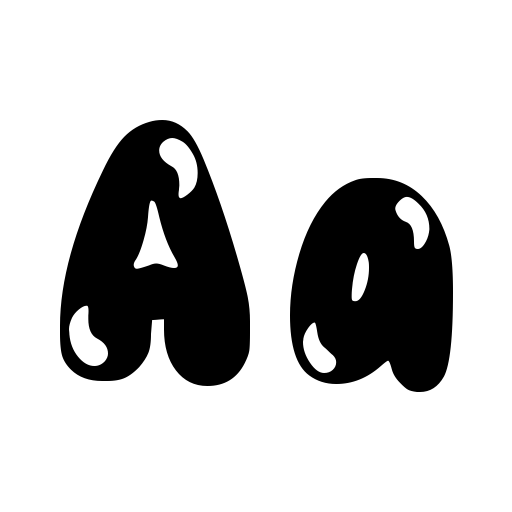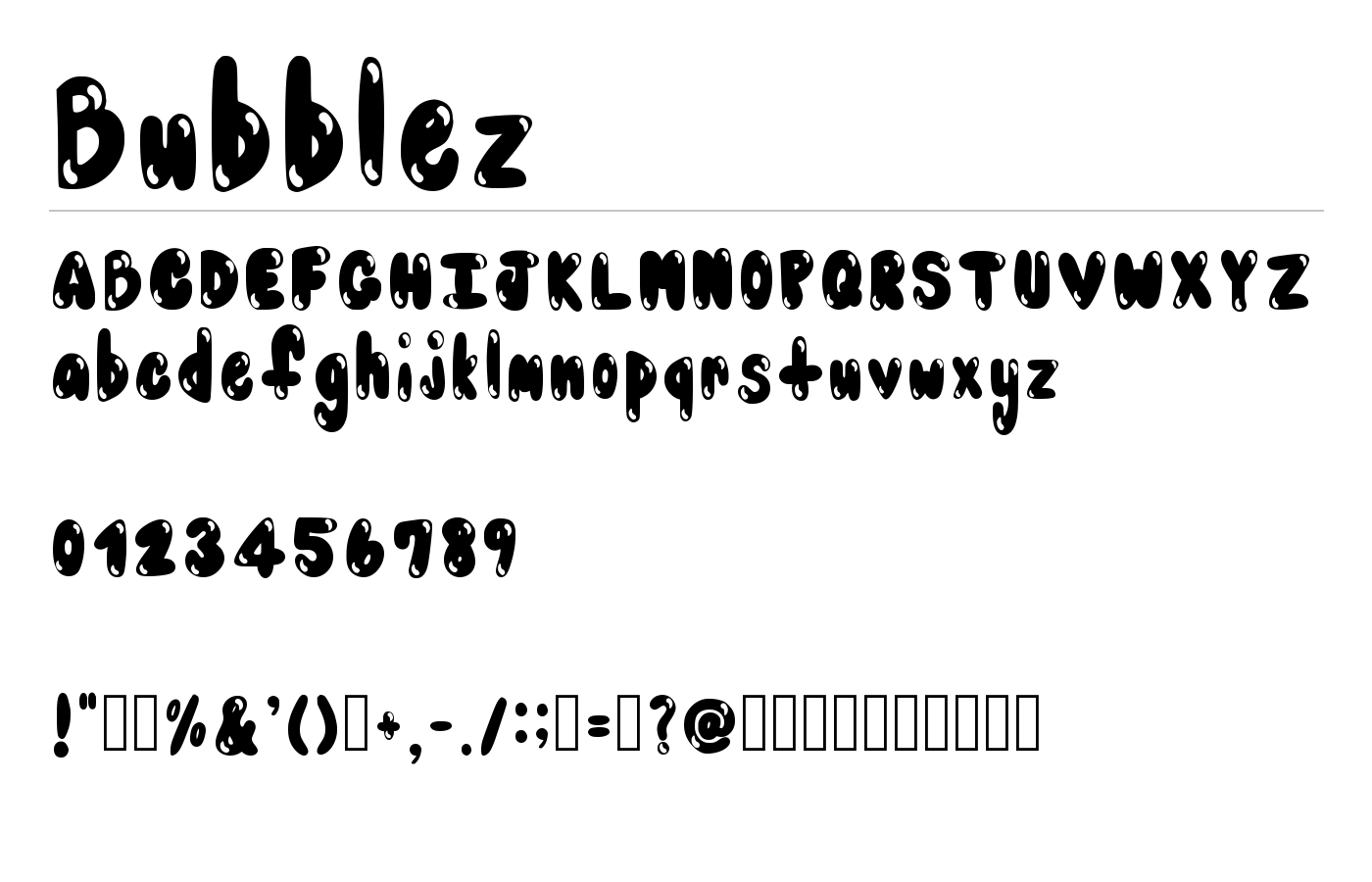
Bubblez Font is a playful and bold display typeface with a bubbly, rounded design that instantly brings a sense of fun and whimsy. Its thick, irregular strokes and quirky letter shapes make it perfect for youthful branding, children's products, party invitations, and any design that calls for a lively, informal vibe. This font creates a joyful and eye-catching impression, ideal for headlines and creative logos that want to stand out with a friendly personality.
Bubblez Font